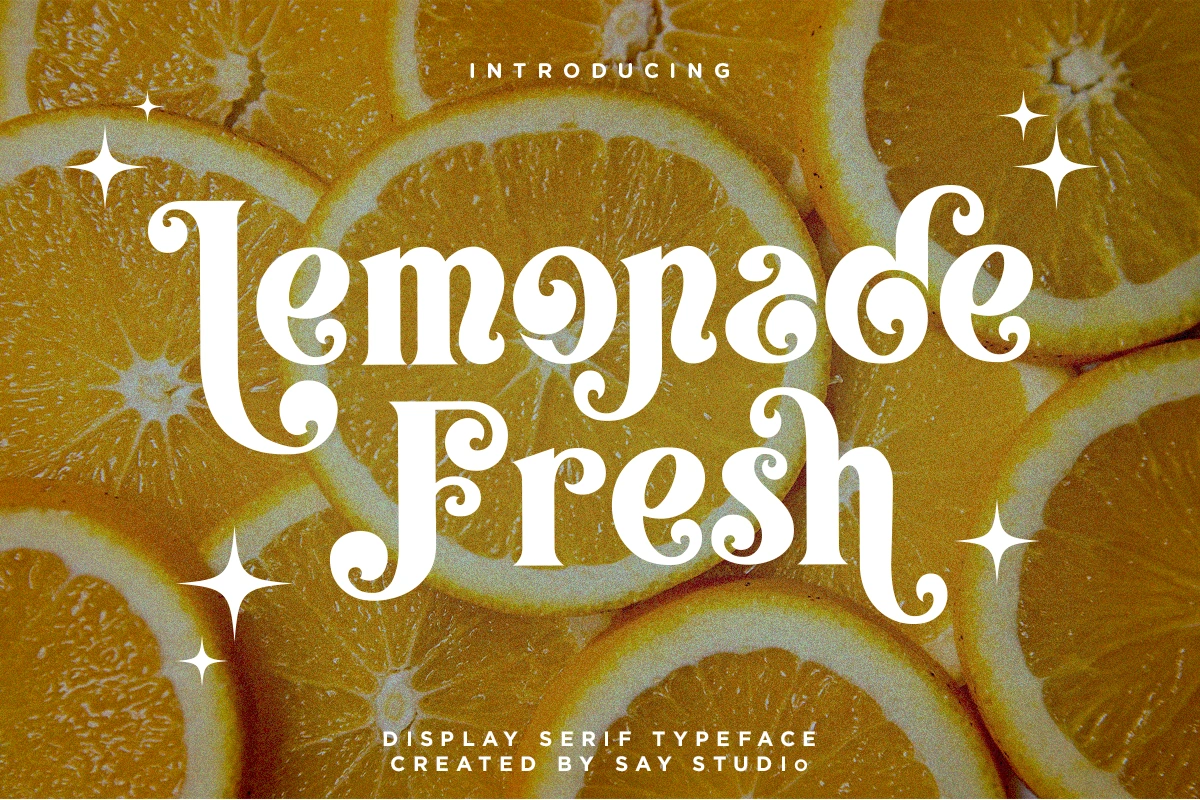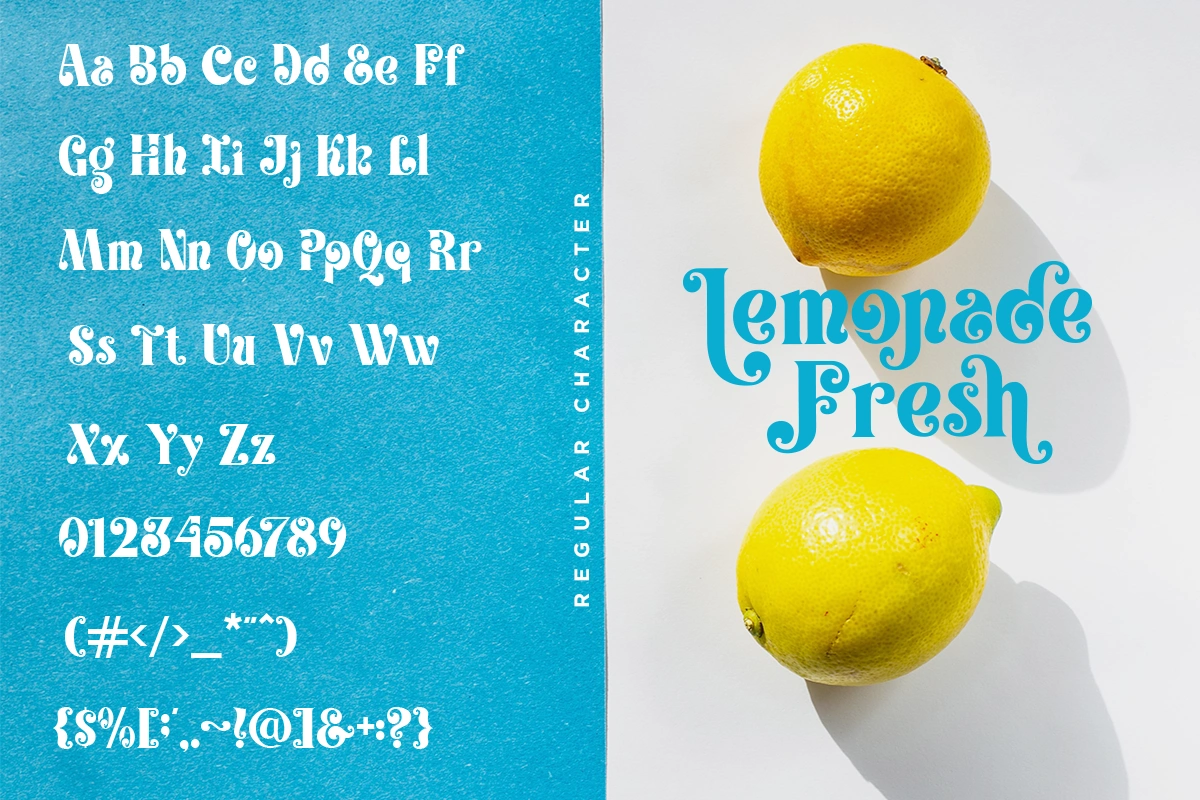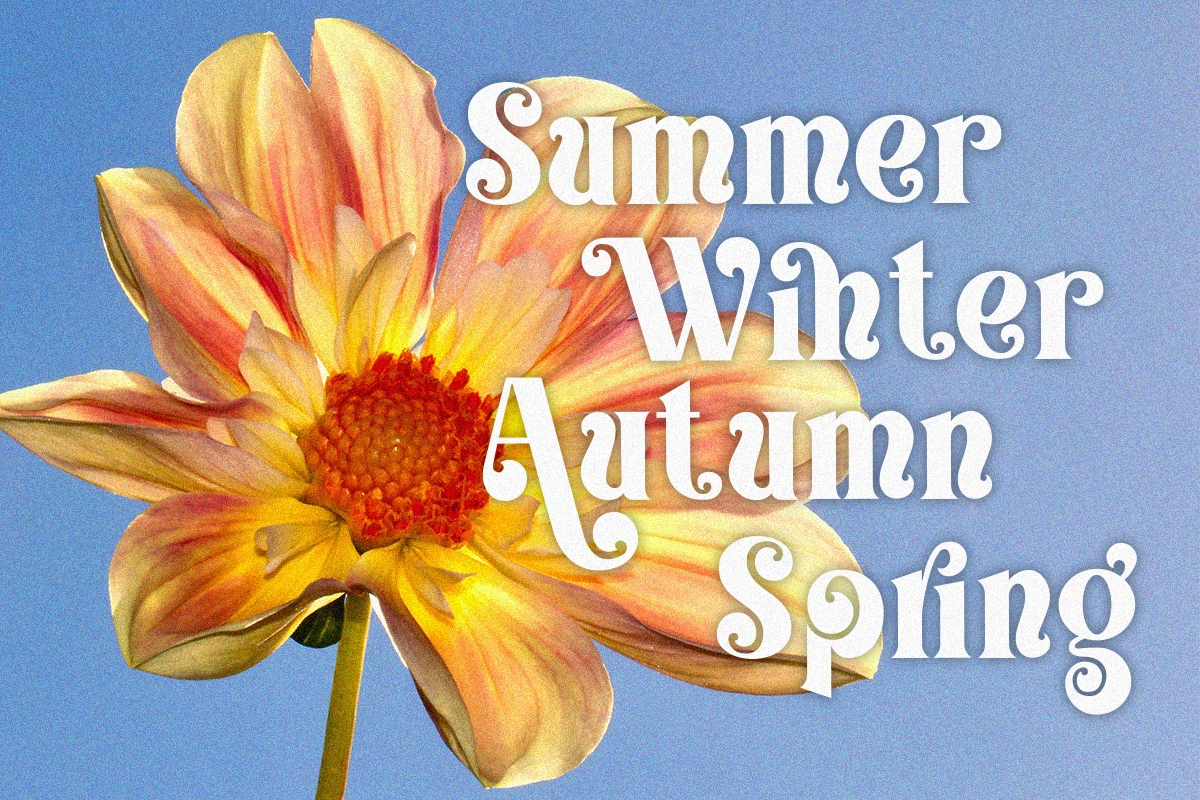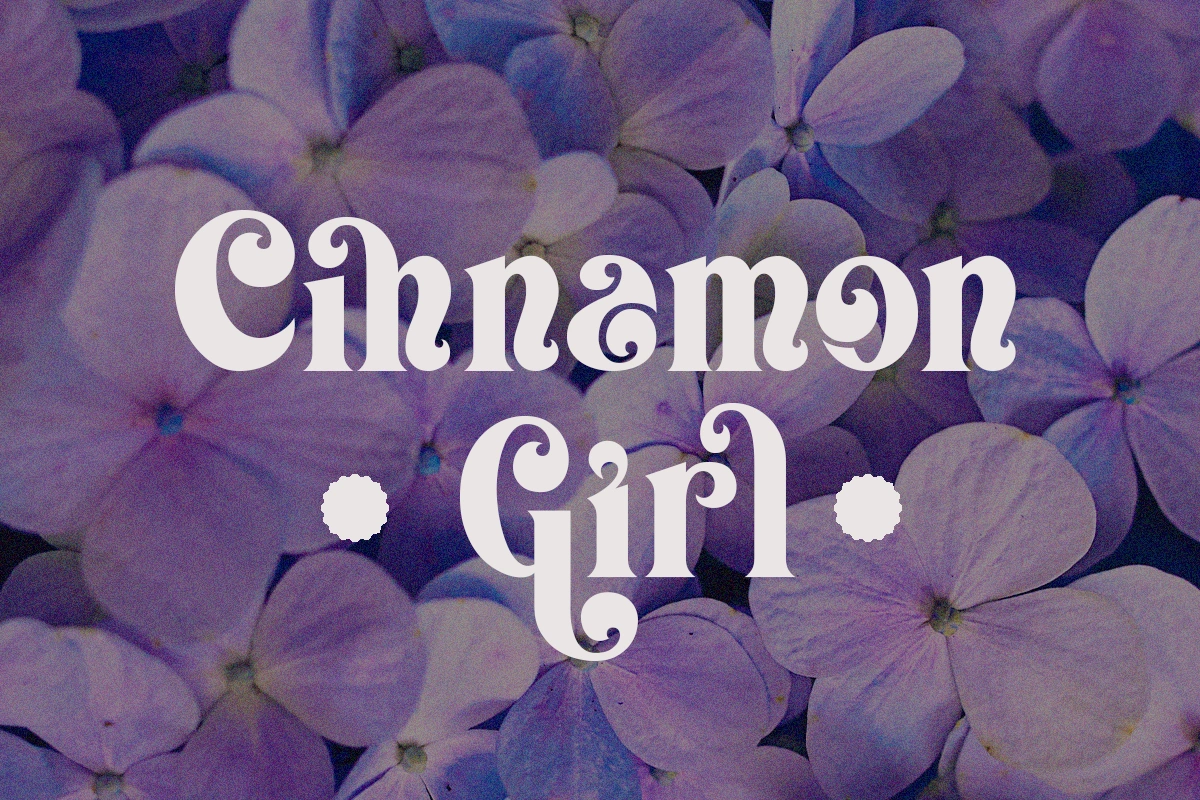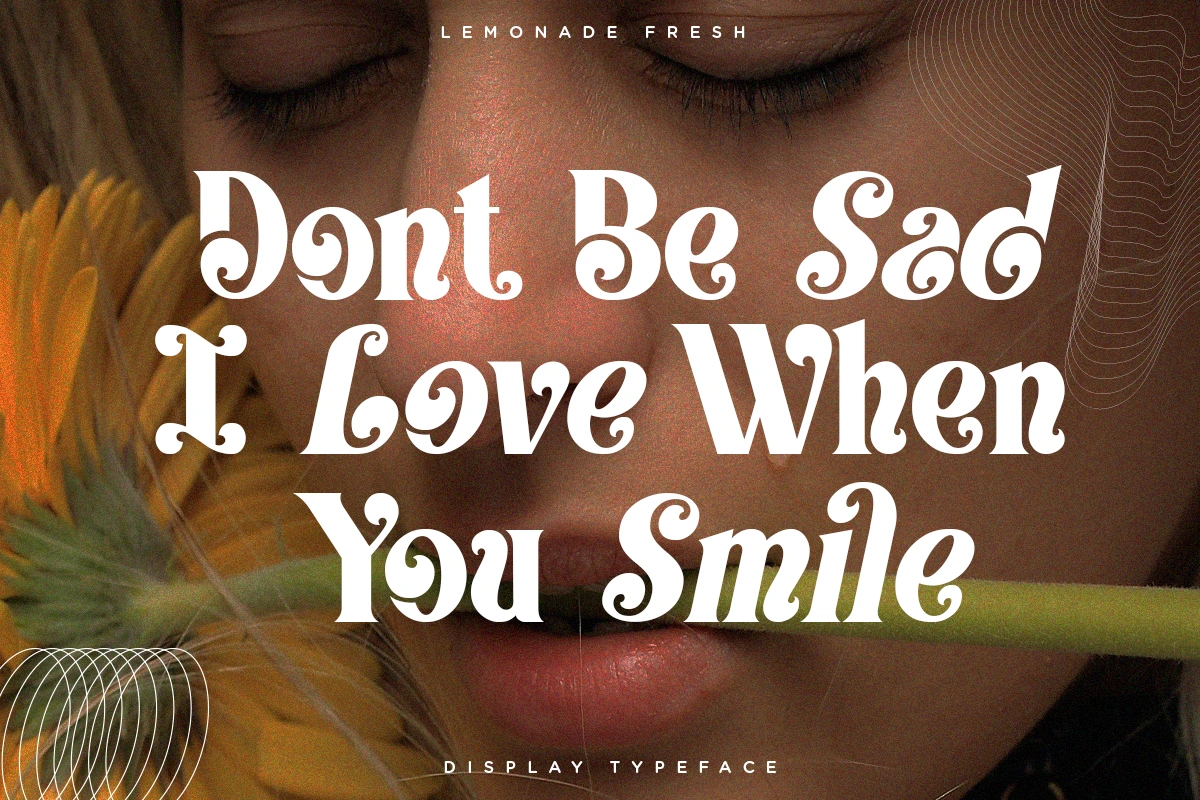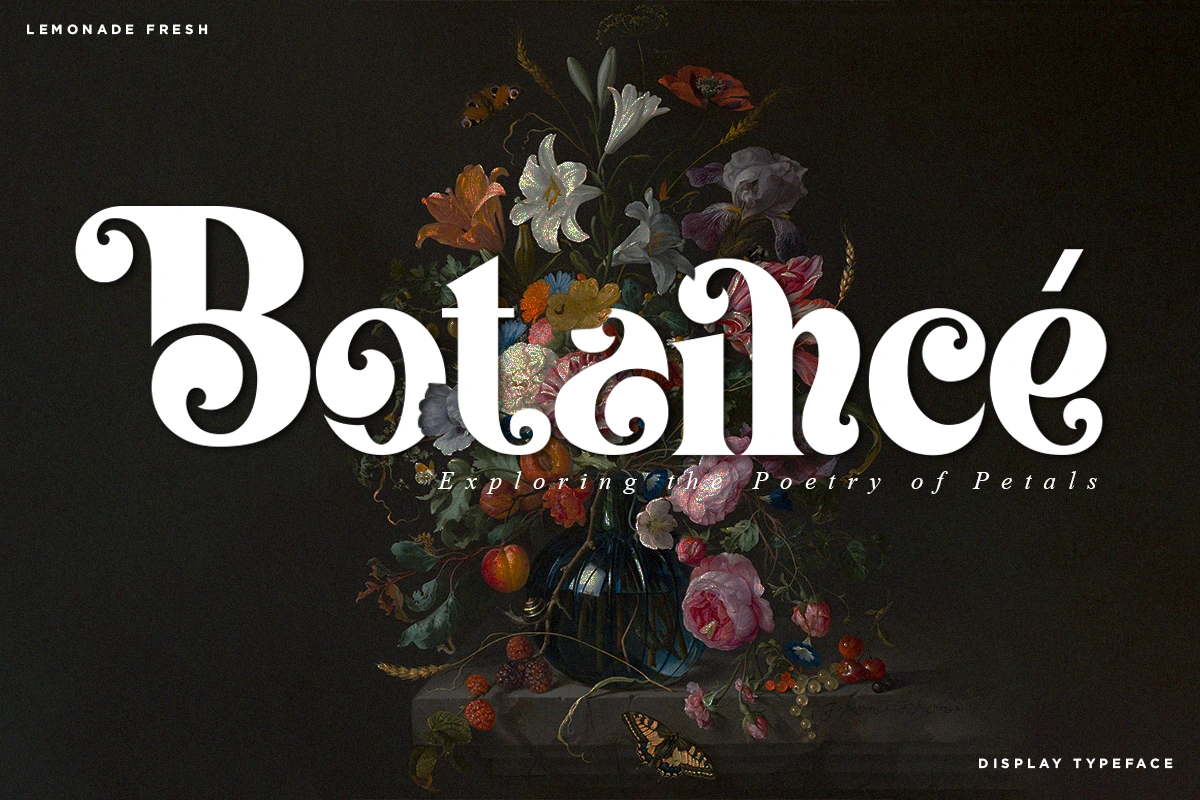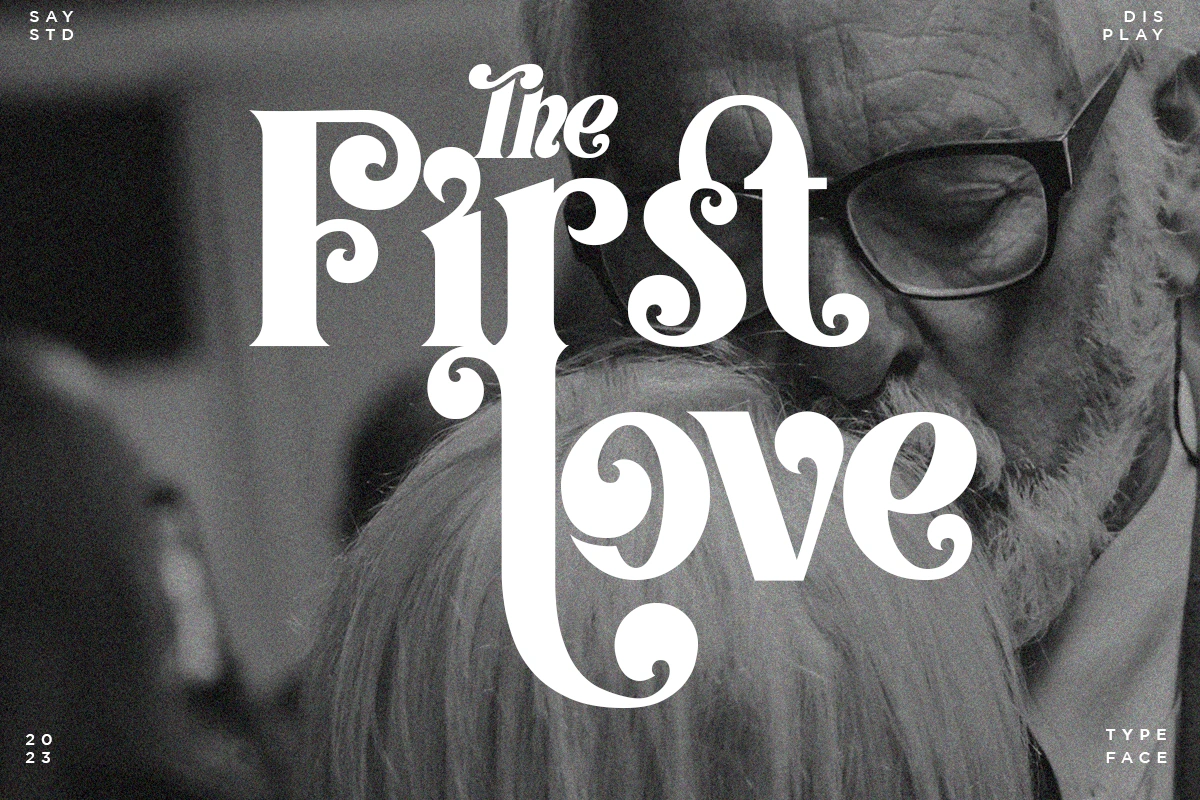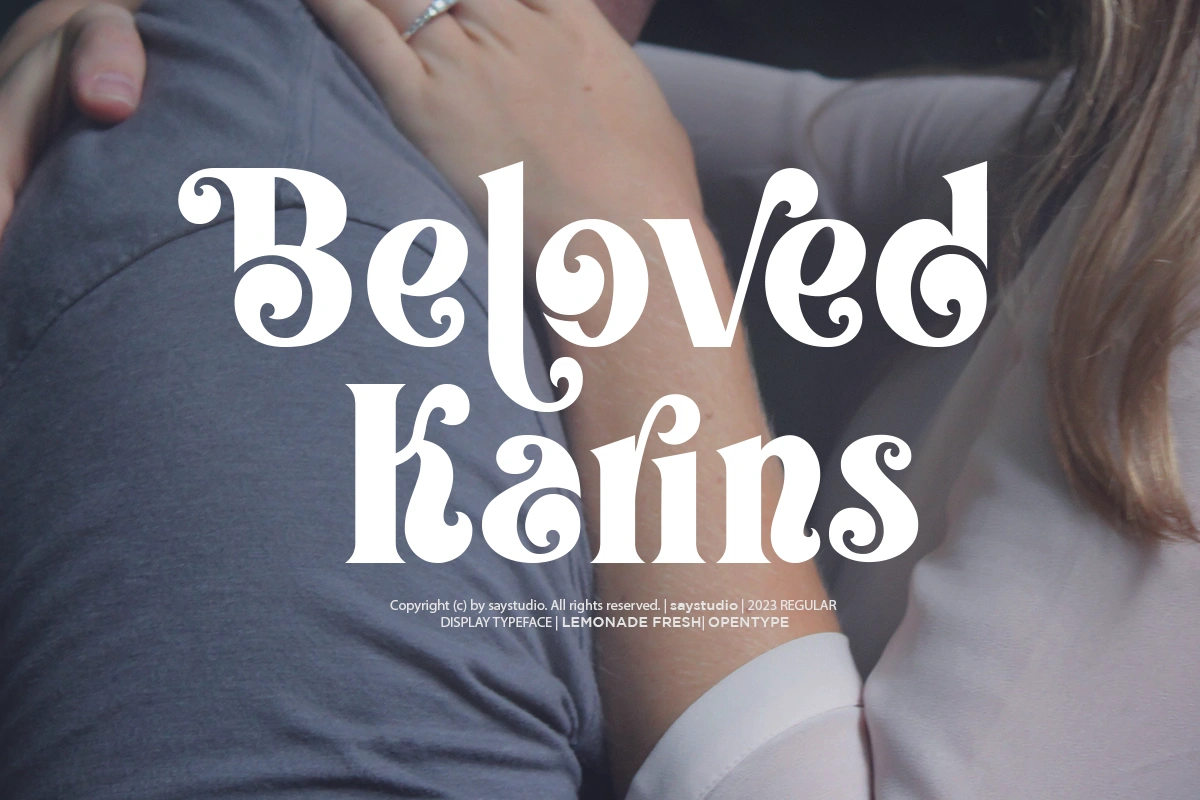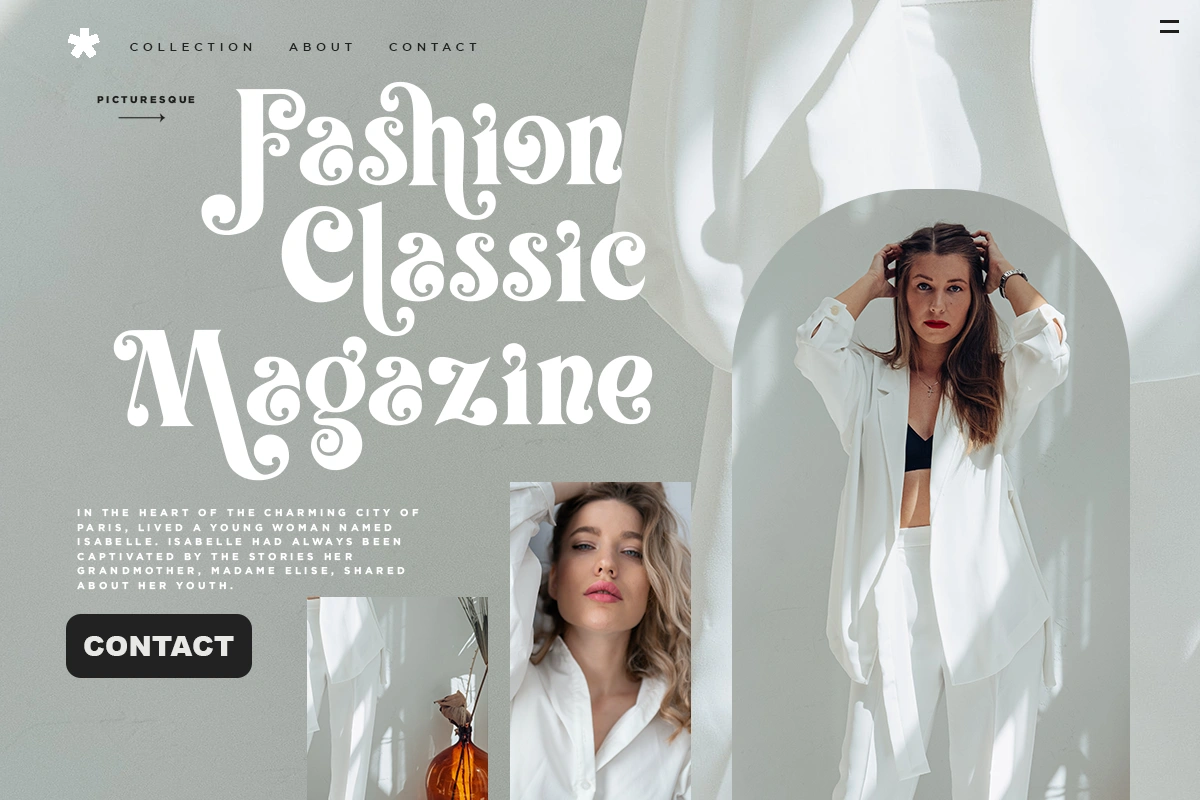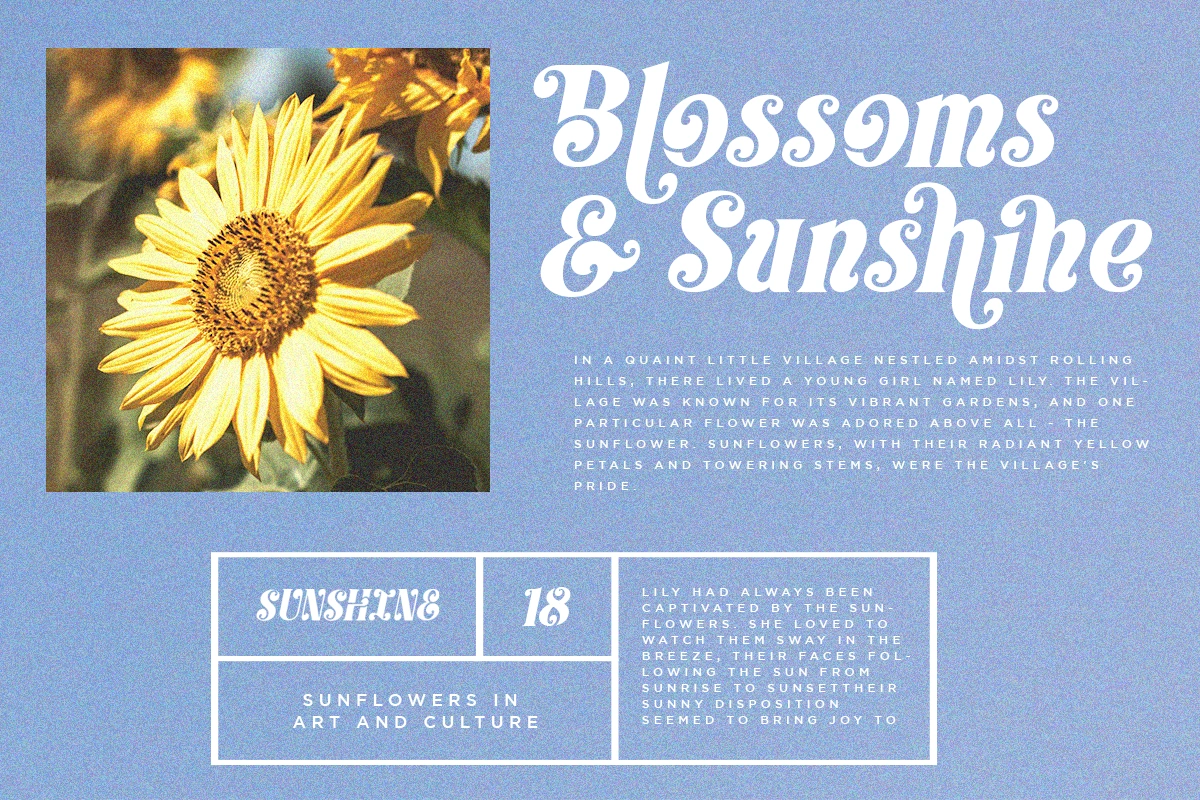
Lemonade Fresh – Display Font
Lemonade Fresh font is a Display Serif Typeface with a unique circular shape inspired by the alternate shapes in most serif fonts, but Lemonade Fresh makes it a regular shape, and Lemonade Fresh still has 50+ other alternate that you can combine to get curves and beautiful shapes easily just in seconds. It is a display font with moderate contrast that perfect for branding projects, logo, wedding designs, social media posts, advertisements, product packaging, product designs, label, photography, watermark, invitation, stationery, and any projects, it makes with a high level of legibility.